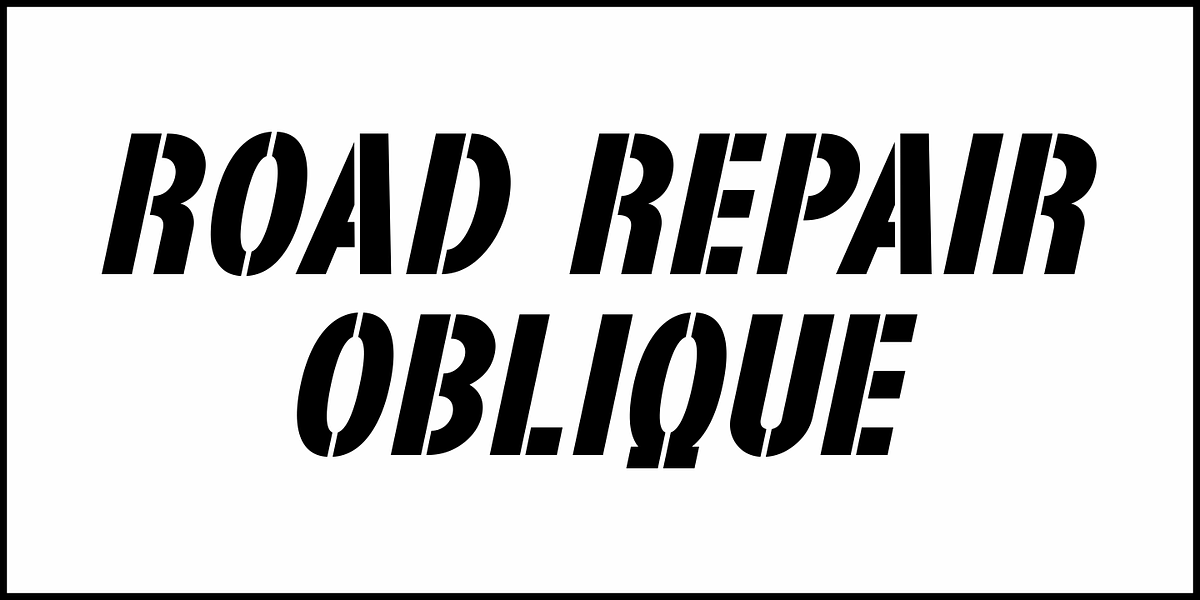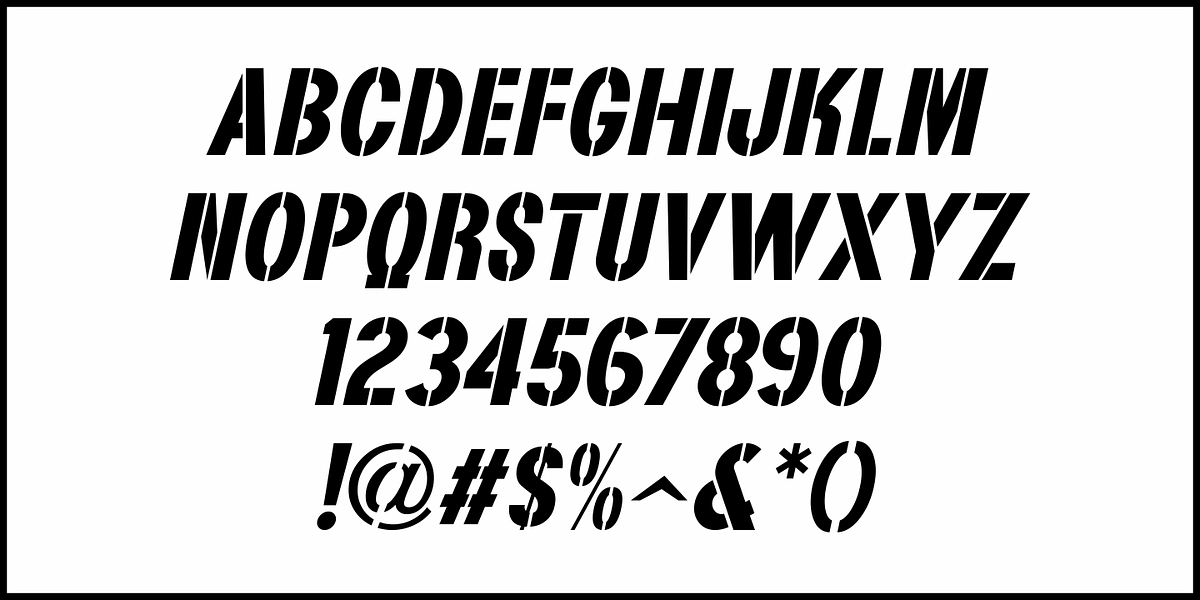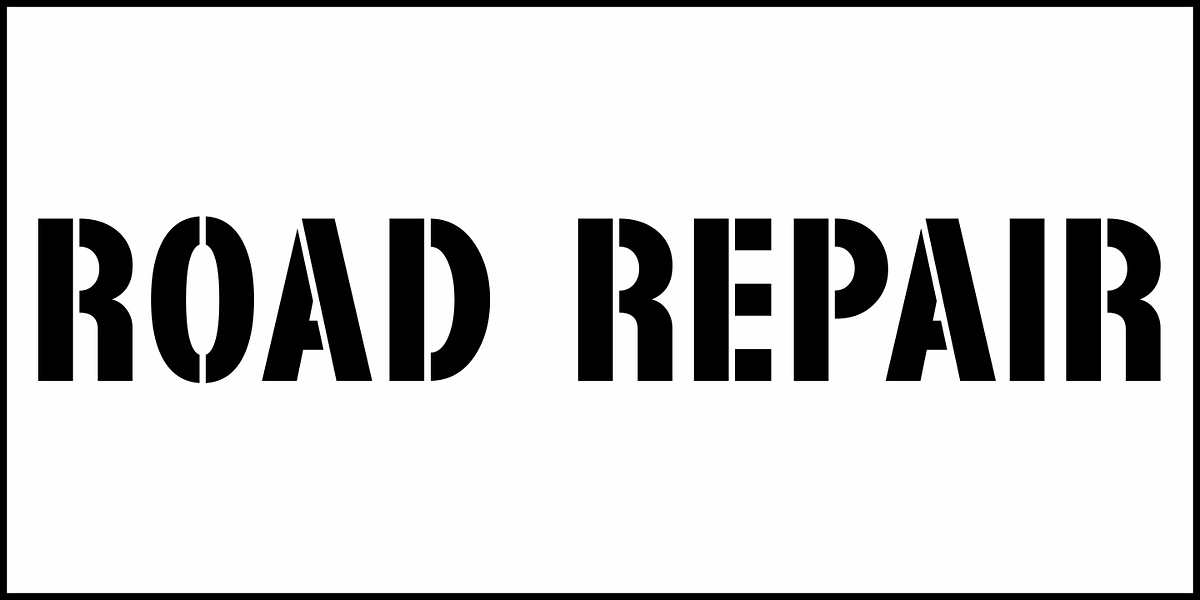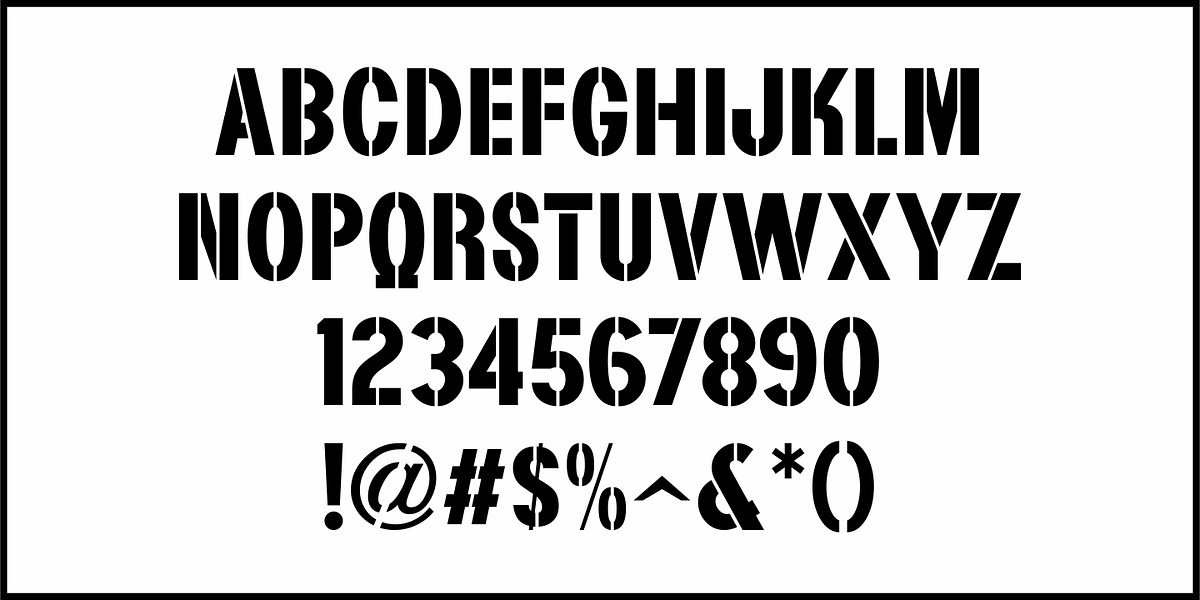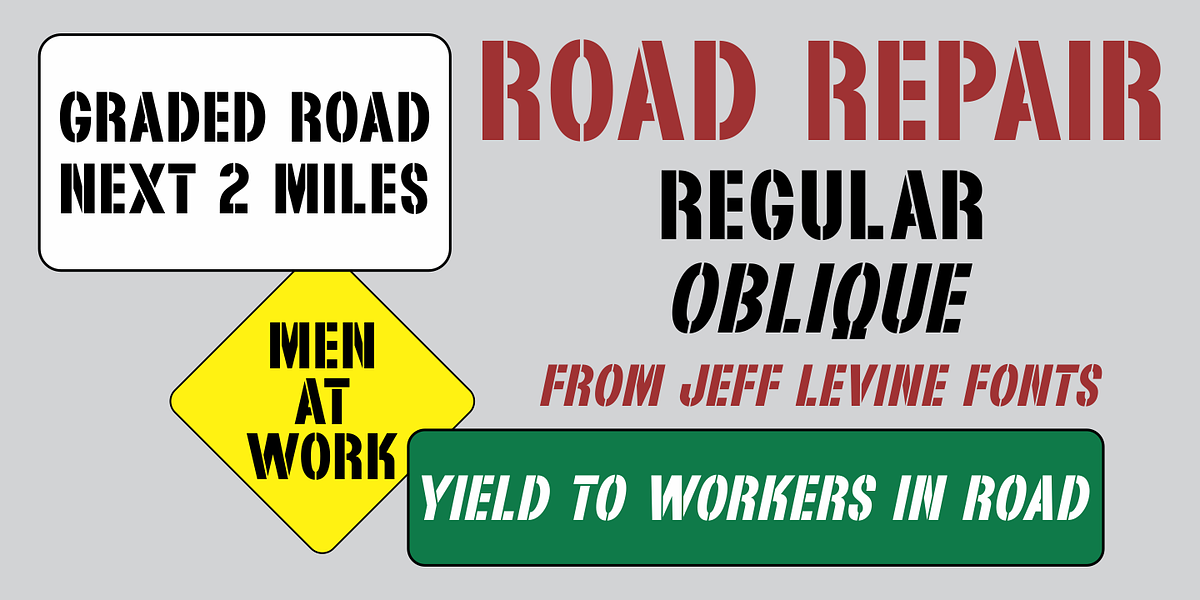
Road Repair JNL
Road Repair JNL is a bold (hand lettered) sans serif stencil font based on the opening credits from the 1954 film “Drive a Crooked Road” – and is available in both regular and oblique versions.